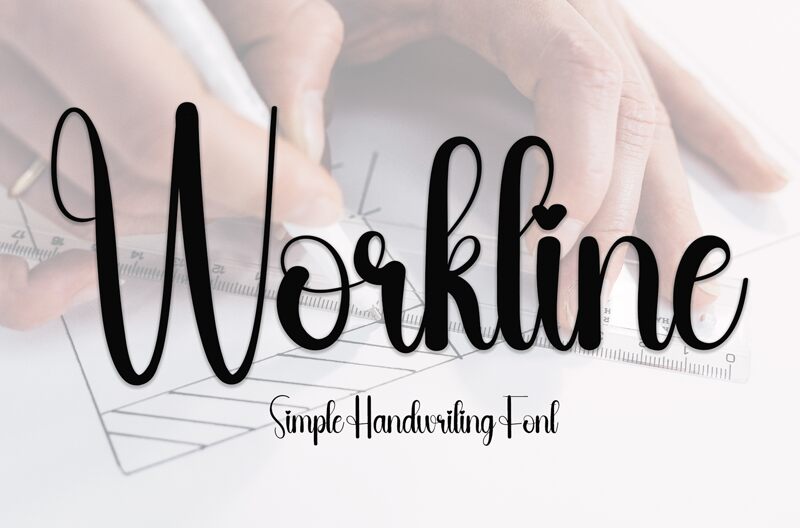
Workline
Workline font combines elements of a handwritten and decorative script font in its design. The casual elegance makes it both expressive and elegant as seen with the interesting interaction between solid and empty areas. Add to this its condensed structure, the round ending curves, and its modern friendly approach which are all features that make up this free font.
Workline deserves a spot in advertising, marketing, branding projects including logos and packaging designs. It can be used for online platforms like blogs or offline ones or product labels where it brings attention to headlines just as much as important body text sections.